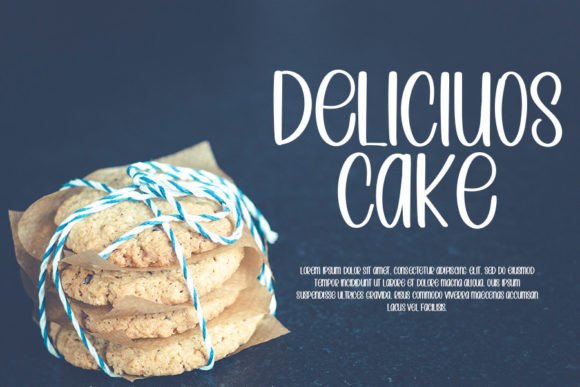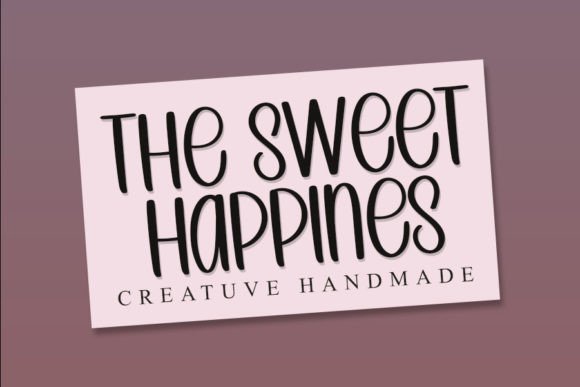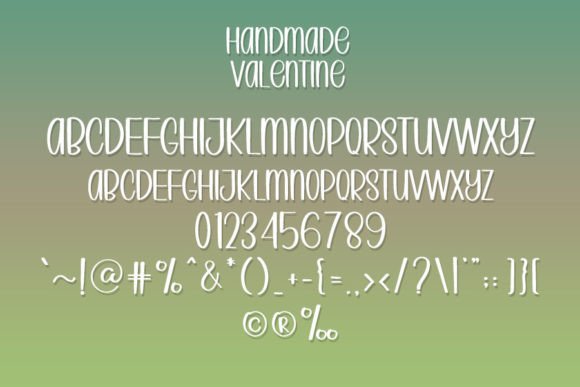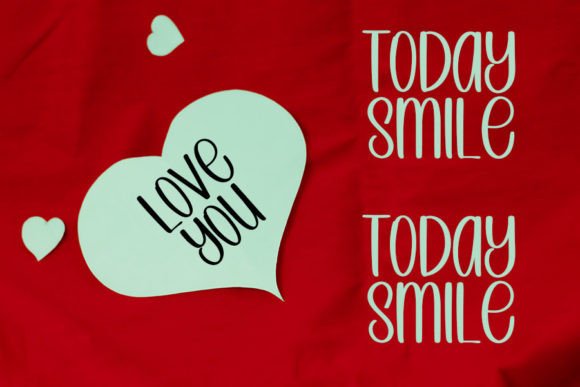
Introducing Handmade Valentine Font: Elevate Your Designs with Elegance and Class
Are you a designer or crafter looking for a unique and stylish font to add a touch of sophistication to your projects? Look no further than the Handmade Valentine Font. This trendy handwritten font is inspired by timeless classic calligraphy, giving it a contemporary atmosphere and impeccable form. In this article, we’ll dive into the features and benefits of the Handmade Valentine Font, and explore how it can elevate your design projects.
What is Handmade Valentine Font?
Handmade Valentine Font is a beautiful, handcrafted font that exudes elegance and class. Its unique and stylish design makes it perfect for a variety of design projects, from romantic Valentine’s Day cards to wedding invitations, and from branding and packaging to social media graphics. The font’s contemporary atmosphere and impeccable form ensure that it will add a touch of sophistication to any design.
Key Features of Handmade Valentine Font
- Trendy Handwritten Design: The Handmade Valentine Font features a trendy handwritten design that is both modern and stylish.
- Inspired by Classic Calligraphy: The font is inspired by timeless classic calligraphy, giving it an air of elegance and sophistication.
- Contemporary Atmosphere: The font’s contemporary atmosphere ensures that it will fit in with modern design trends.
- Impeccable Form: The font’s impeccable form makes it perfect for use in a variety of design projects.
- Elegant and Classy: The Handmade Valentine Font is the epitome of elegance and class, making it perfect for designs that require a touch of sophistication.
Benefits of Using Handmade Valentine Font
So, why should you choose the Handmade Valentine Font for your design projects? Here are just a few benefits of using this beautiful font:
- Adds Elegance and Class: The Handmade Valentine Font adds a touch of elegance and class to any design project.
- Versatile: The font is versatile and can be used in a variety of design projects, from romantic cards to branding and packaging.
- Easy to Read: The font is easy to read, making it perfect for use in body text or headings.
- Unique and Stylish: The Handmade Valentine Font is unique and stylish, ensuring that your designs will stand out from the crowd.
How to Use Handmade Valentine Font in Your Designs
Using the Handmade Valentine Font in your designs is easy. Here are a few tips to get you started:
- Pair it with Other Fonts: Pair the Handmade Valentine Font with other fonts to create a unique and stylish design.
- Use it in Headings and Titles: Use the font in headings and titles to add a touch of elegance and class to your designs.
- Add it to Your Branding: Add the Handmade Valentine Font to your branding to give it a touch of sophistication.
- Experiment with Colors and Textures: Experiment with different colors and textures to give your designs a unique and stylish look.
In conclusion, the Handmade Valentine Font is a beautiful and stylish font that is perfect for designers and crafters looking to add a touch of elegance and class to their projects. With its trendy handwritten design, impeccable form, and contemporary atmosphere, this font is sure to elevate your designs and make them stand out from the crowd. So why wait? Download the Handmade Valentine Font today and start creating stunning designs that exude elegance and sophistication.
- What is the Handmade Valentine Font?: The Handmade Valentine Font is a trendy handwritten font inspired by timeless classic calligraphy.
- What is the font suitable for?: The font is suitable for a variety of design projects, including romantic cards, wedding invitations, branding, and packaging.
- Is the font easy to read?: Yes, the font is easy to read, making it perfect for use in body text or headings.